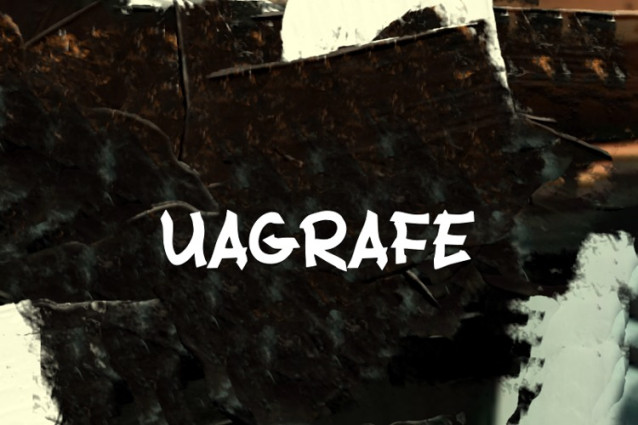
Uagrafe Font
Uagrafe Font is a chunky, comic, and cartoon display font. With its neat and joyful personality, this font will enhance any project you wish to create!